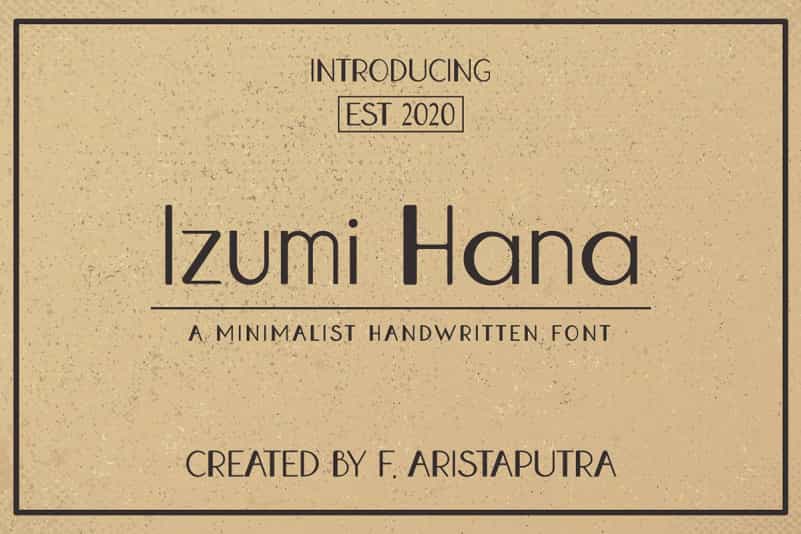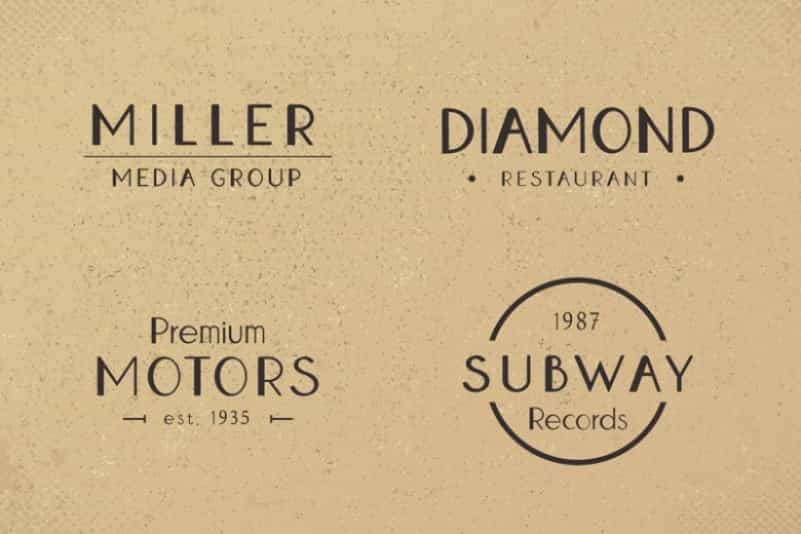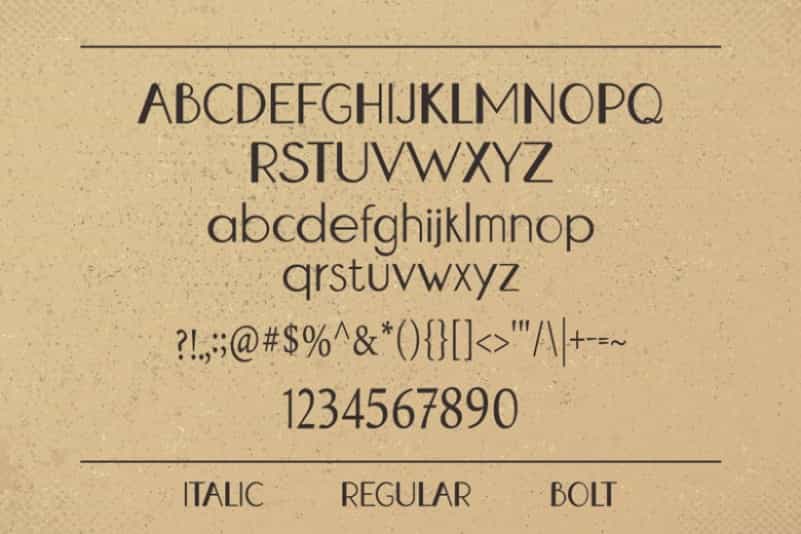
Izumi Hana is a new sanserif typeface of today which is developed with the inspirations from the contemporary transitional typefaces. It has a high contrast between the characters to give it a more professional appearance as well as a relatively tall x height which helps with the readability of individual sentences. This typeface comes created by Erik5541 the designer Erik5541.